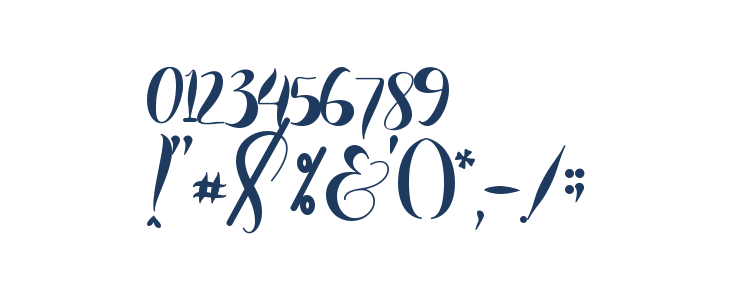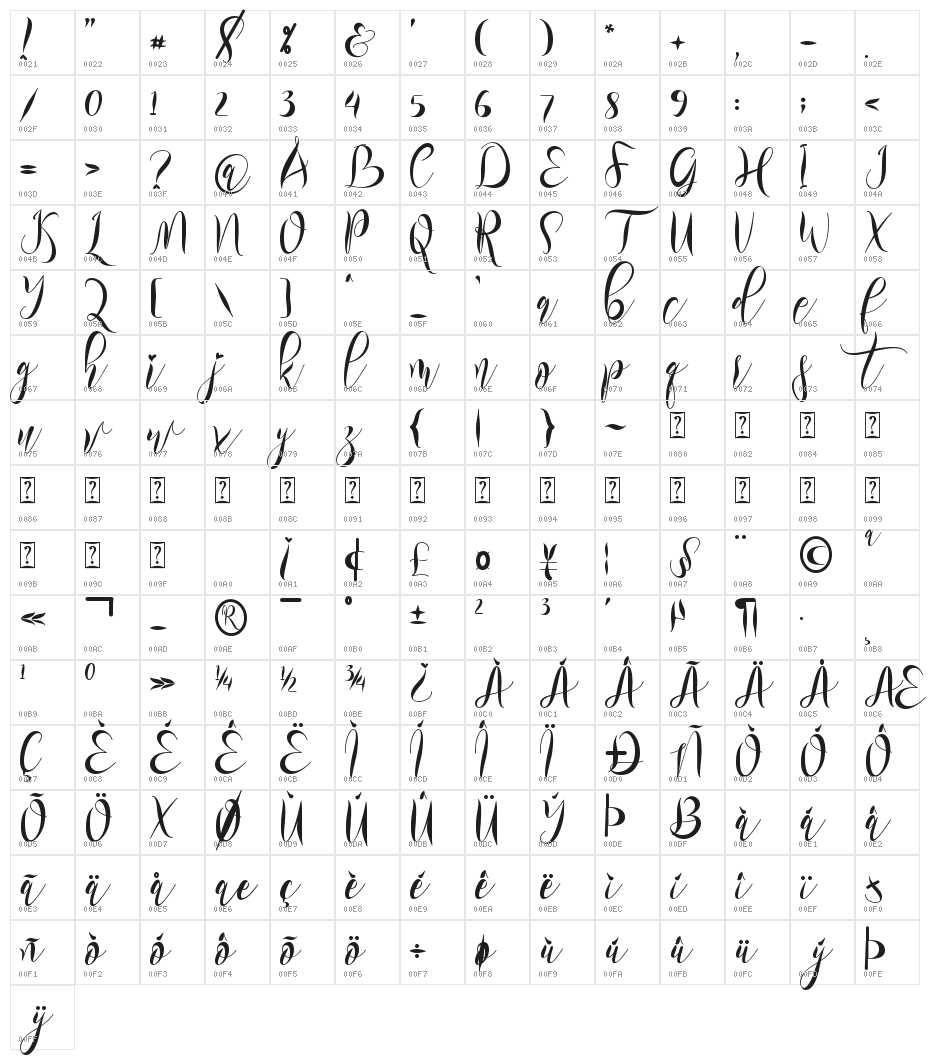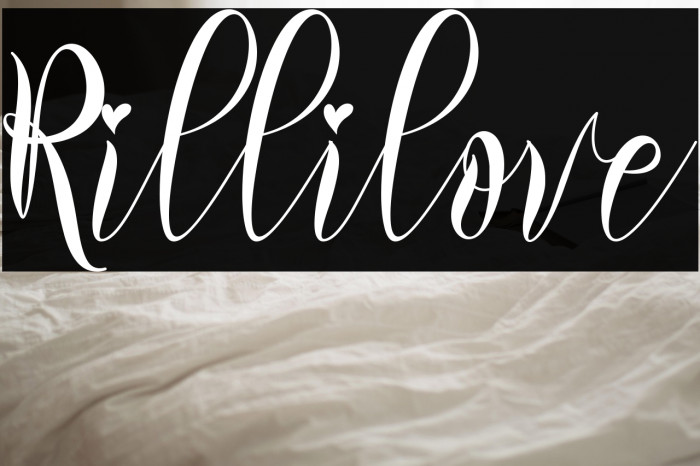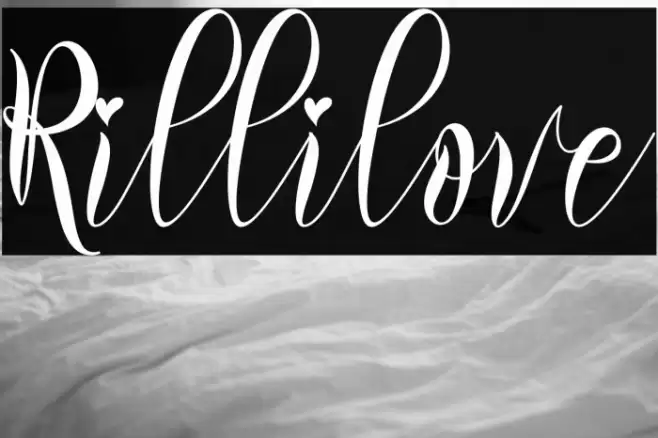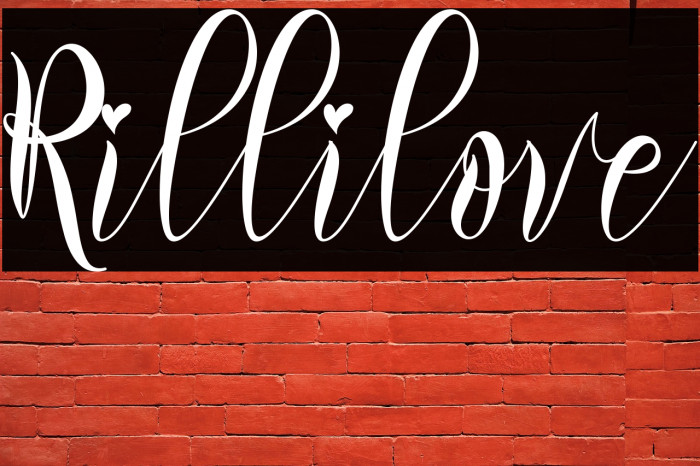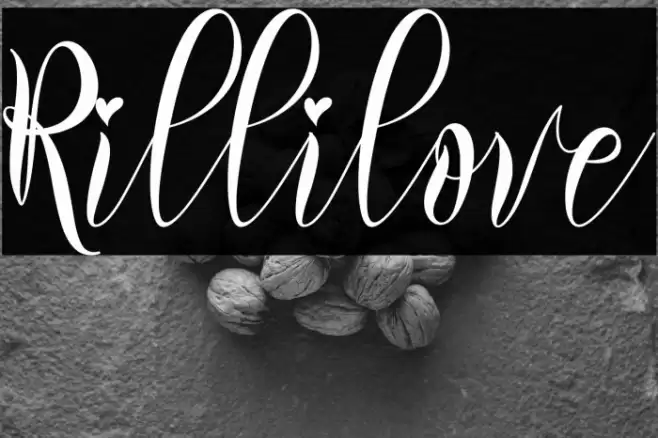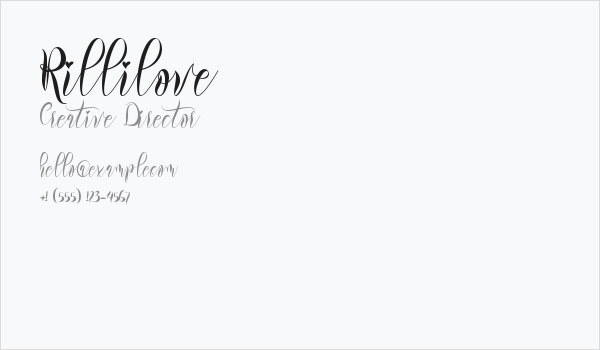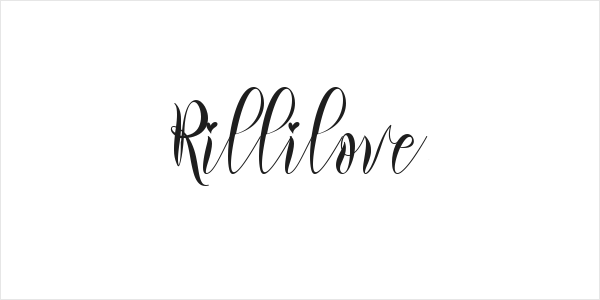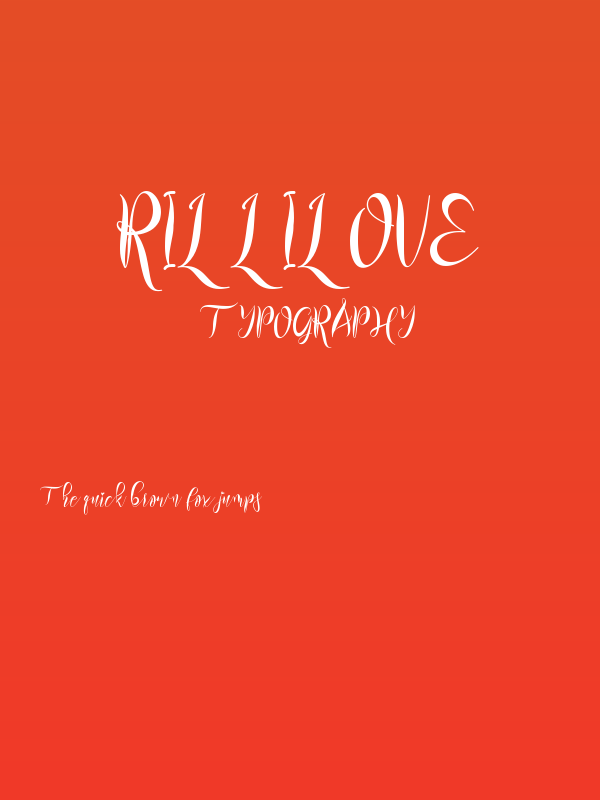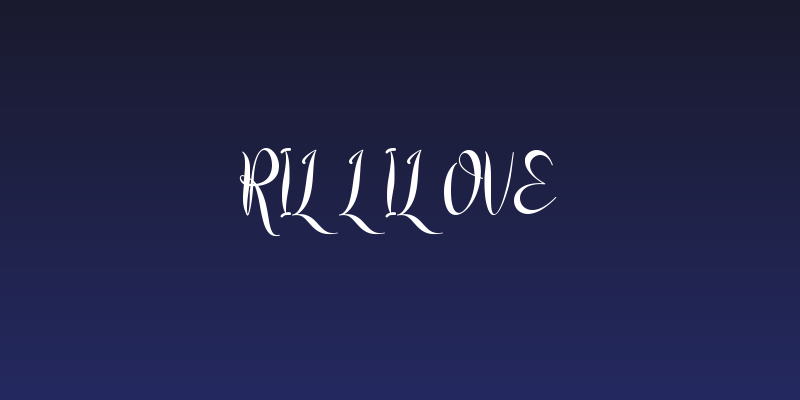
Rillilove Font
Rillilove Description
This font features a flowing, cursive style with elegant, sweeping strokes that give it a romantic and artistic feel. The uppercase letters are bold and expressive, with unique flourishes that add a touch of sophistication. The lowercase letters maintain a consistent fluidity, enhancing the overall aesthetic with their graceful curves. The numerals are distinct and stylish, complementing the alphabet with their dynamic forms. Special characters are creatively designed, adding versatility to the font. This font's artistic flair makes it suitable for projects that require a personal and creative touch.
| Proposed Projects | Ideal for wedding invitations, greeting cards, branding, and artistic projects. |